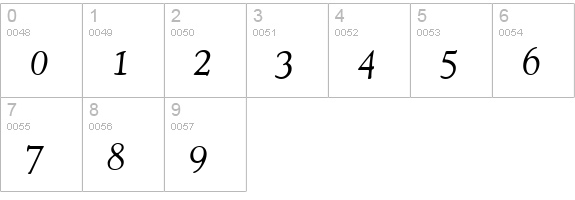
C793-Roman-Italic Font Details
C793-Roman-Italic is a distinctive, italic variant in the C793 typeface family \xE2\x80\x94 well suited to design and typography projects.
C793-Roman-Italic is a classic and elegant font that exudes sophistication and charm. Its sleek and slanted design gives a modern twist to traditional Roman lettering, making it perfect for a wide range of design projects. The italicized style adds a touch of flair and elegance, making any text stand out with a refined aesthetic. This font is not only visually appealing but also highly versatile, suitable for both formal and creative designs. Whether you're designing invitations, logos, or branding materials, C793-Roman-Italic will elevate your project with its timeless appeal. Best of all, C793-Roman-Italic is available for free download at FontsMarket.com. This means you can access this stylish font without any cost, making it a valuable addition to your font library. Don't miss out on the opportunity to enhance your designs with this beautiful and freely accessible typeface.